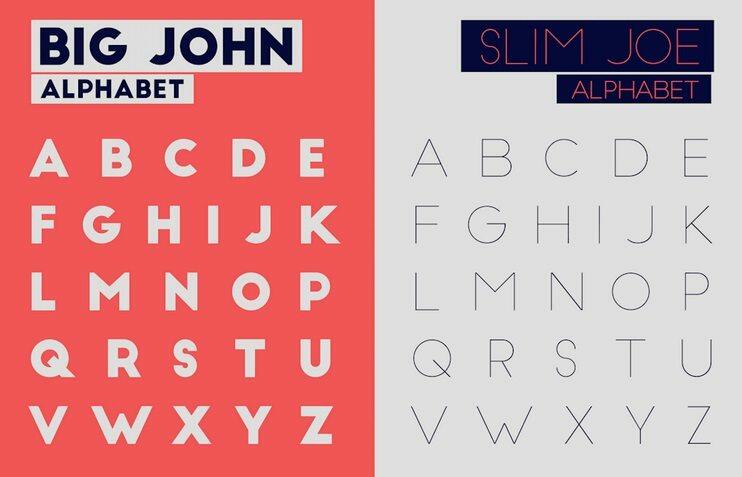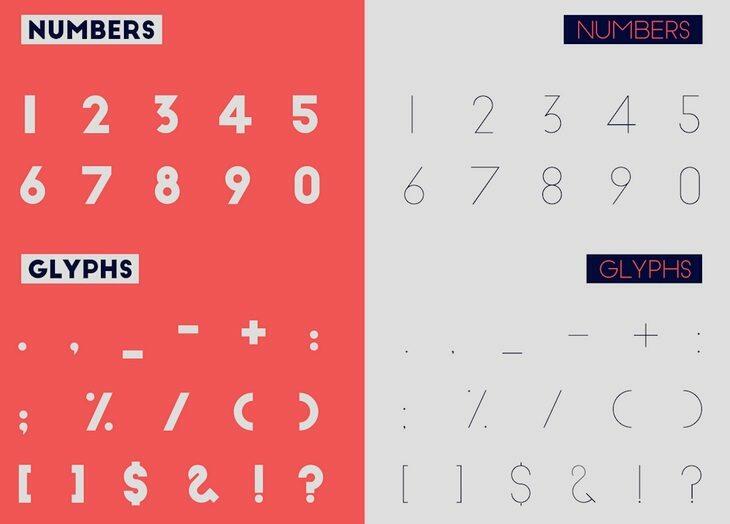
Big John / Slim Joe Font
The font pack was made by Ion Lucin . He like to experiment a lot with typography. Slim Joe, a sister font of Big John, an ultra light version you might say that he opted to save separately in combination. The two create a perfect and bold contrast. All capitals, alphabet, numbers, and glyphs, for strong visual impact. Geometric and modern, simple and rational forms, for personal and commercial use. Design, animate, illustrate, free for everyone. Enjoy!
Big John / Slim Joe Numbers & Glyphs